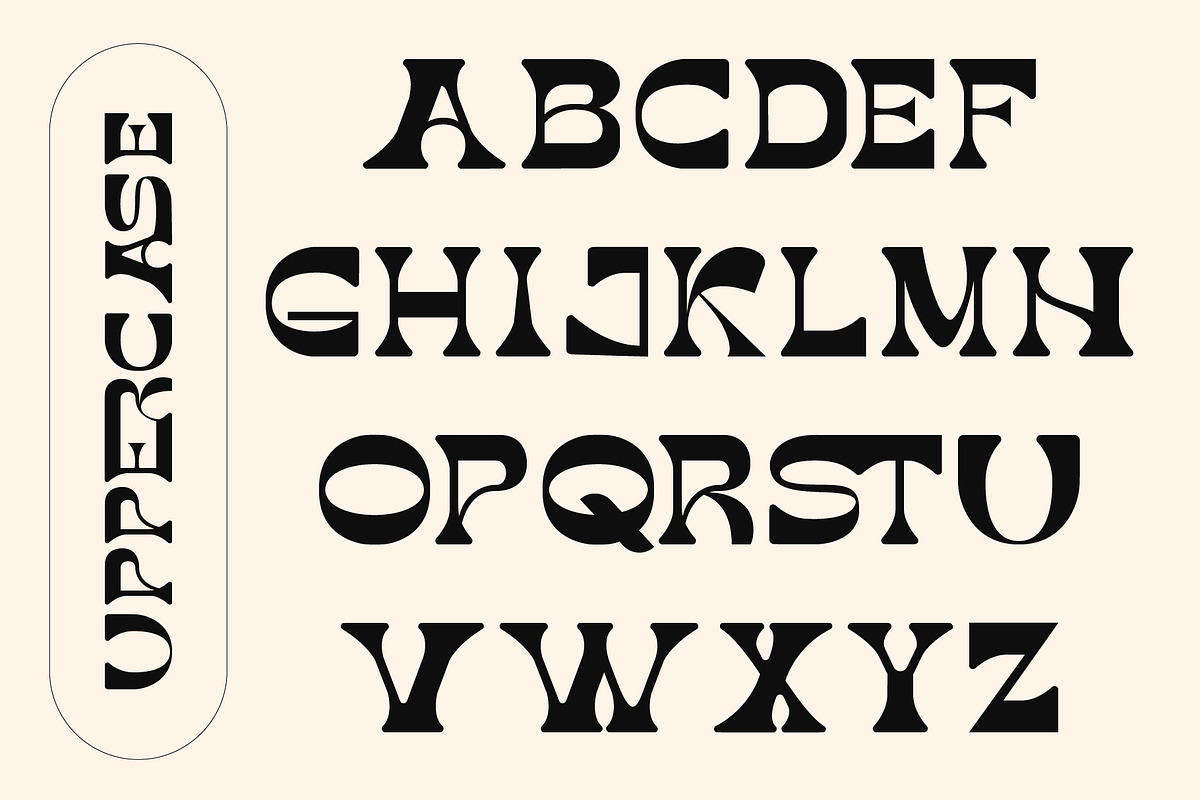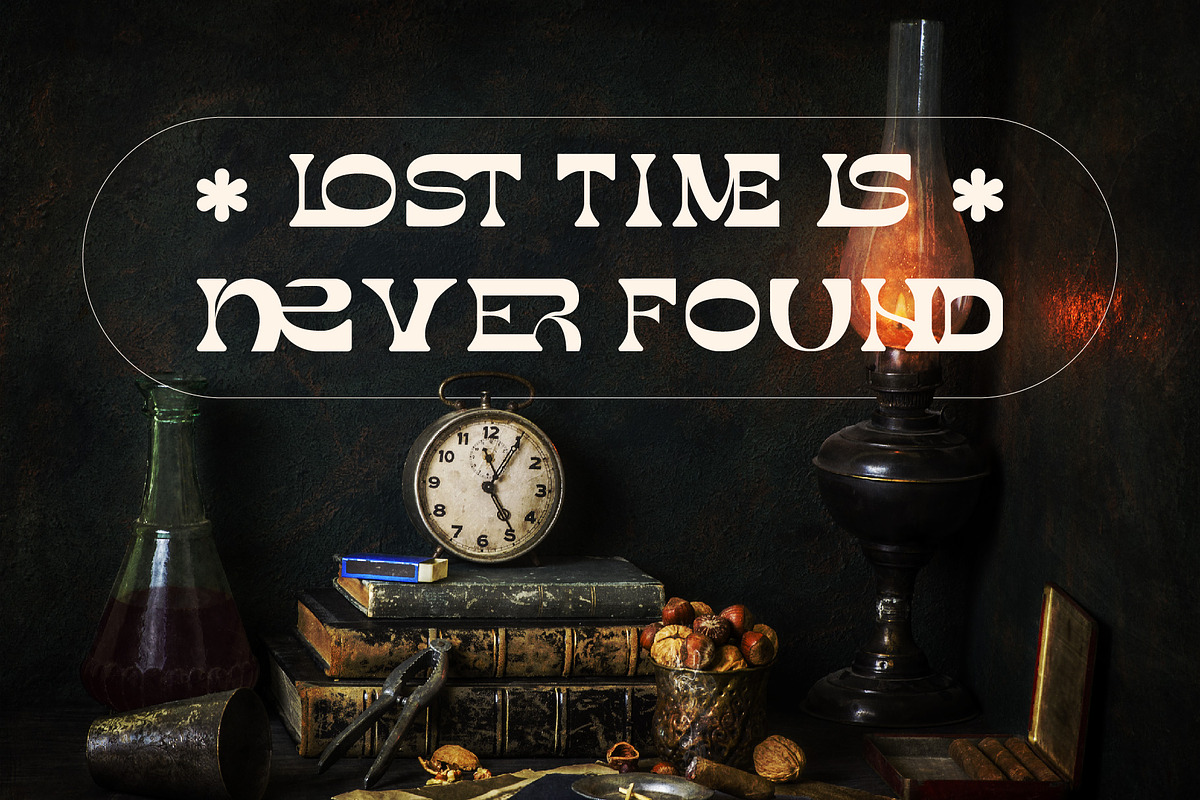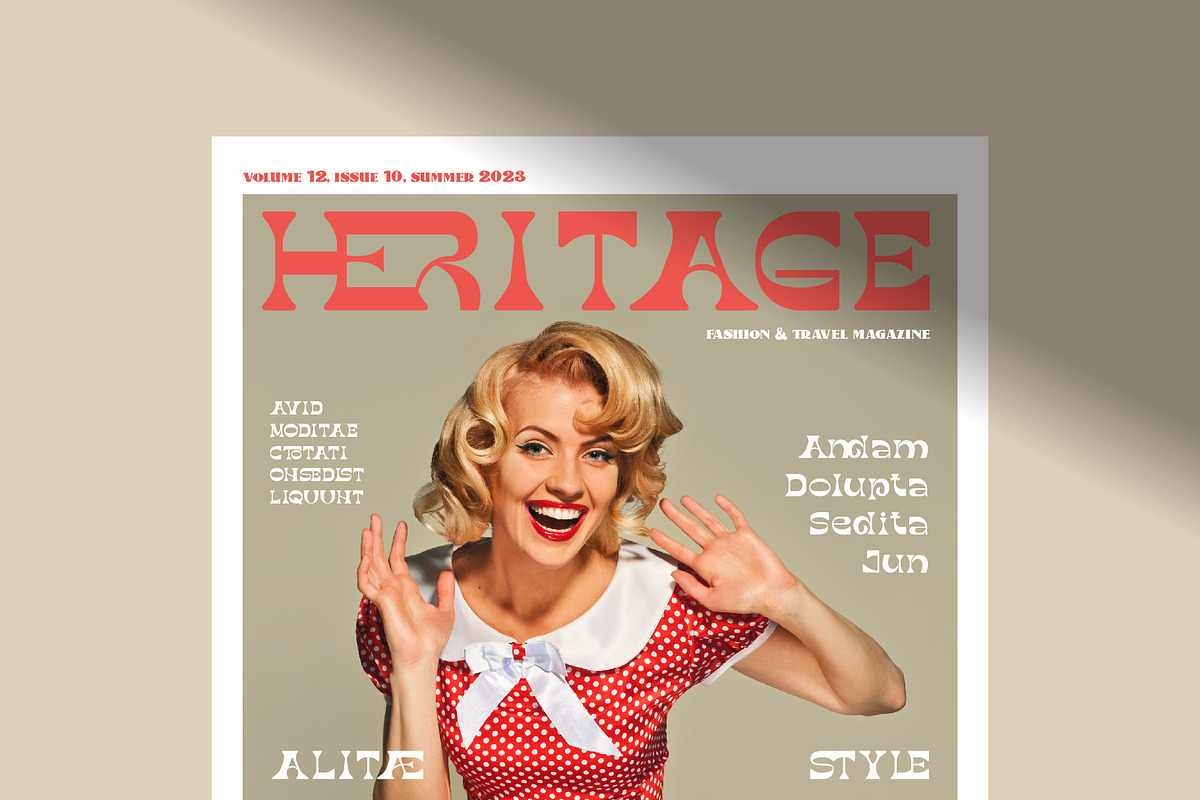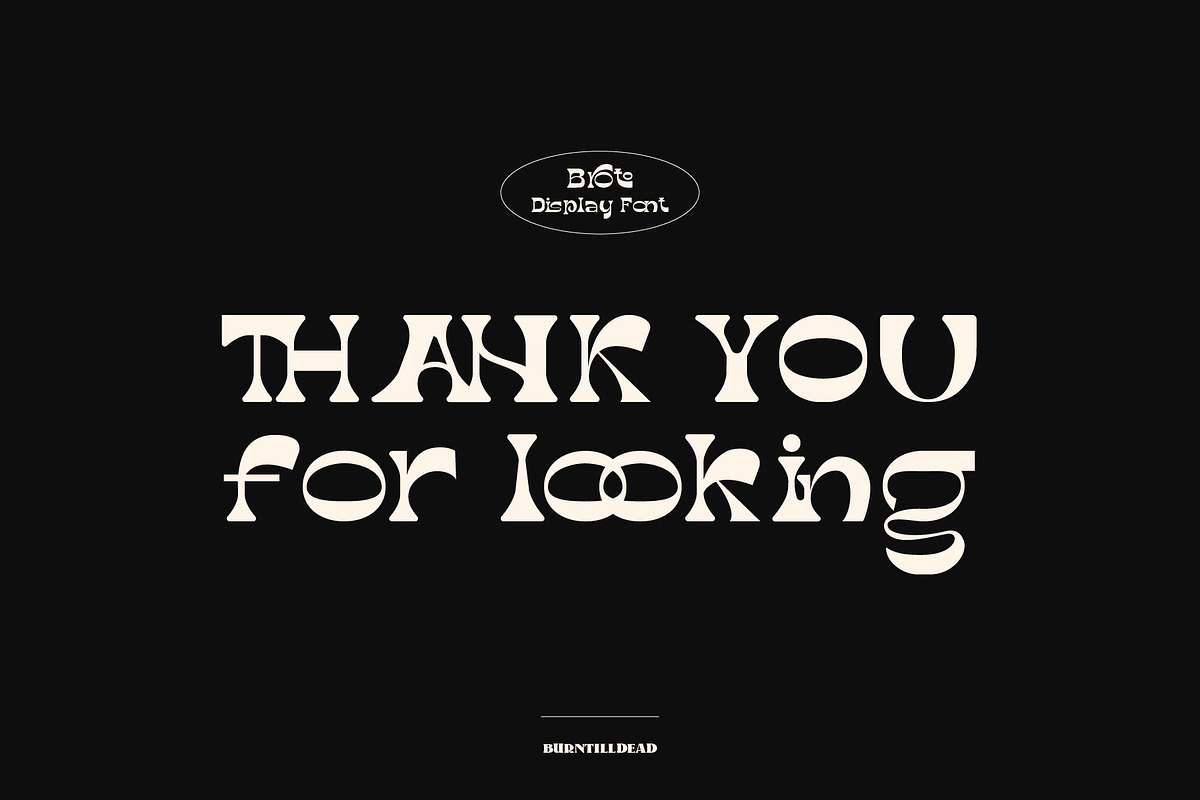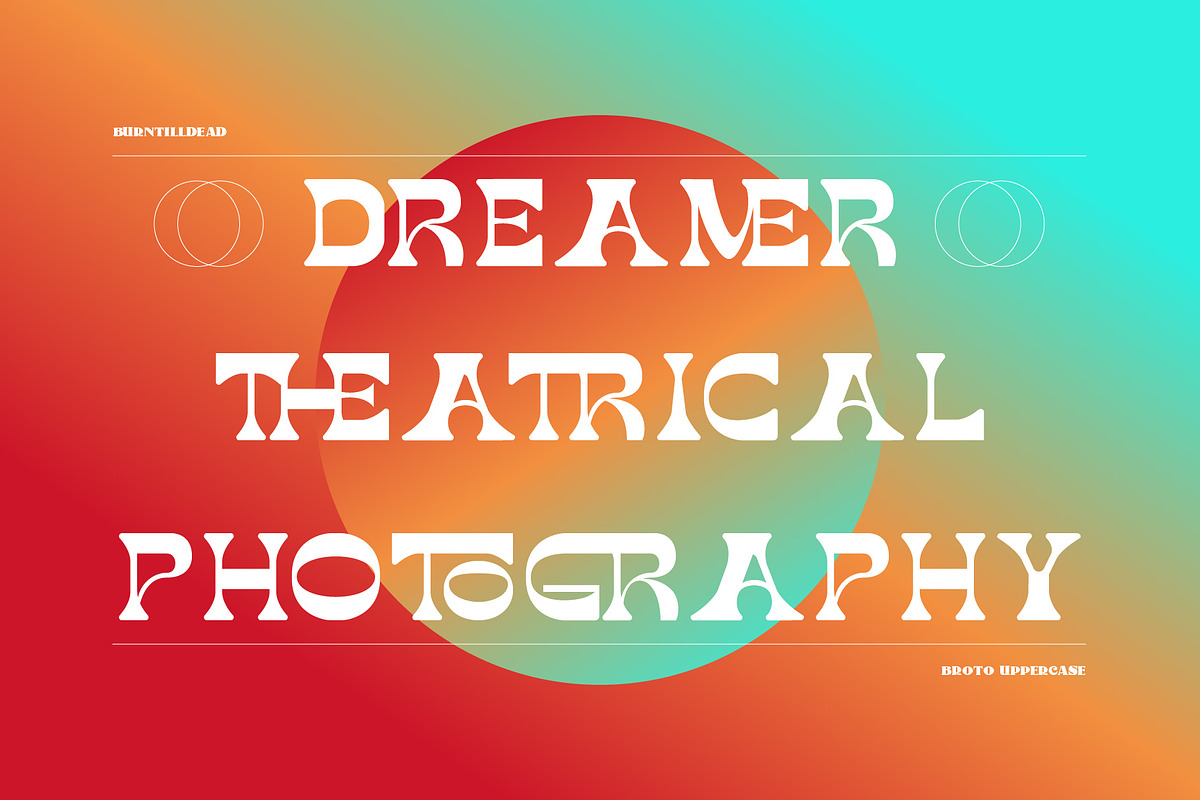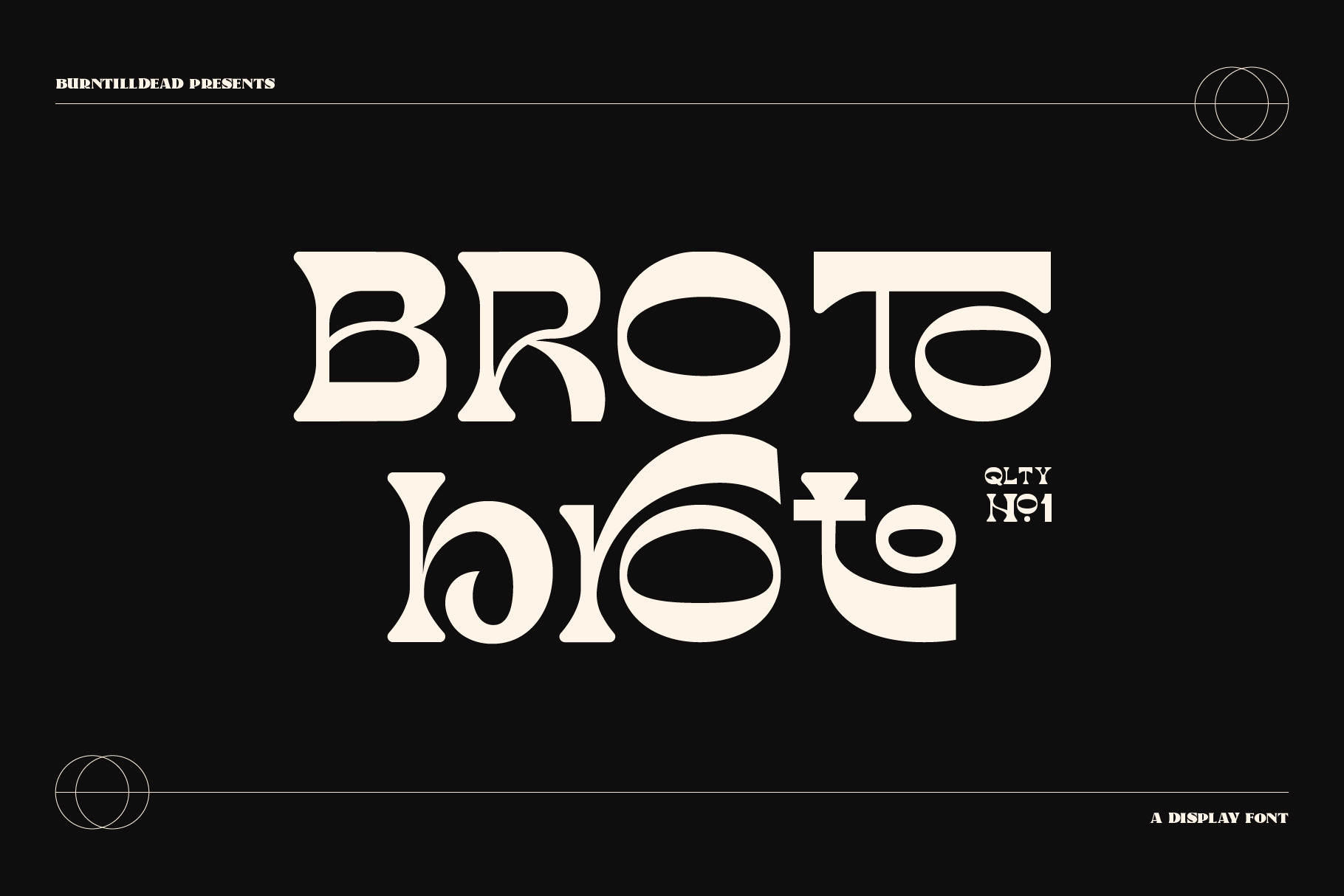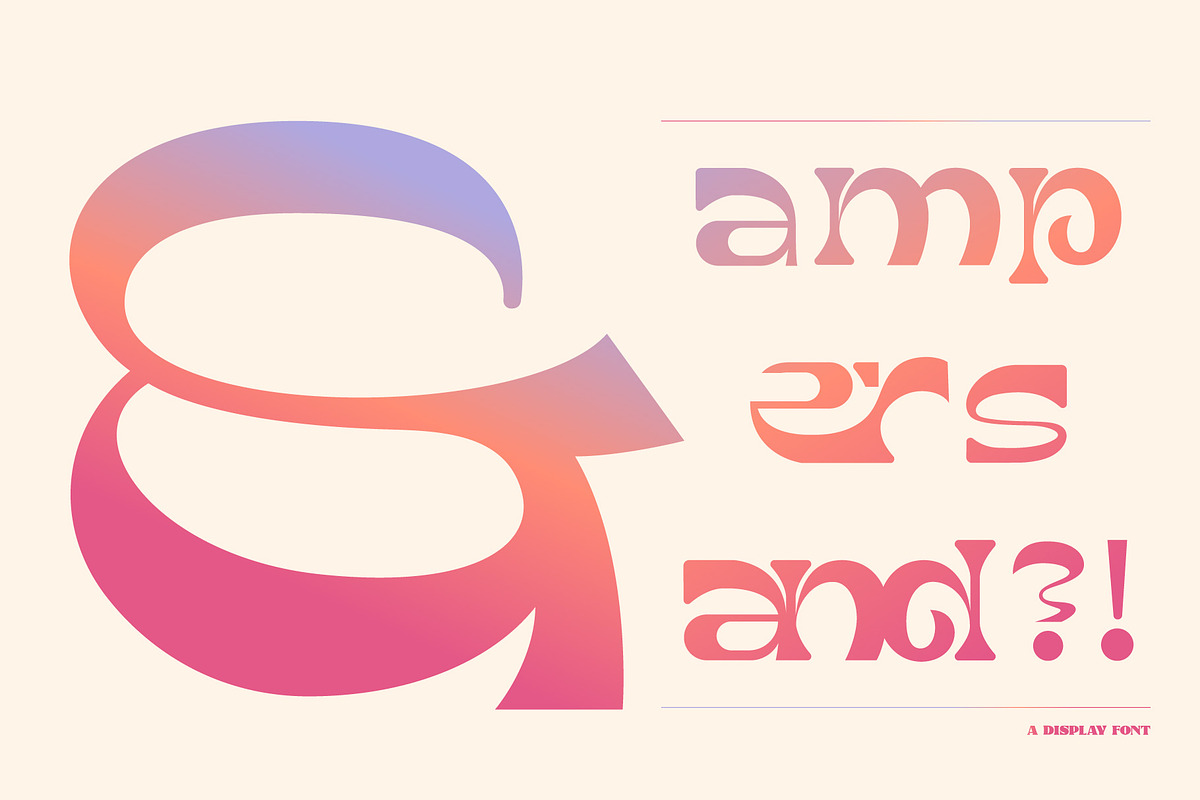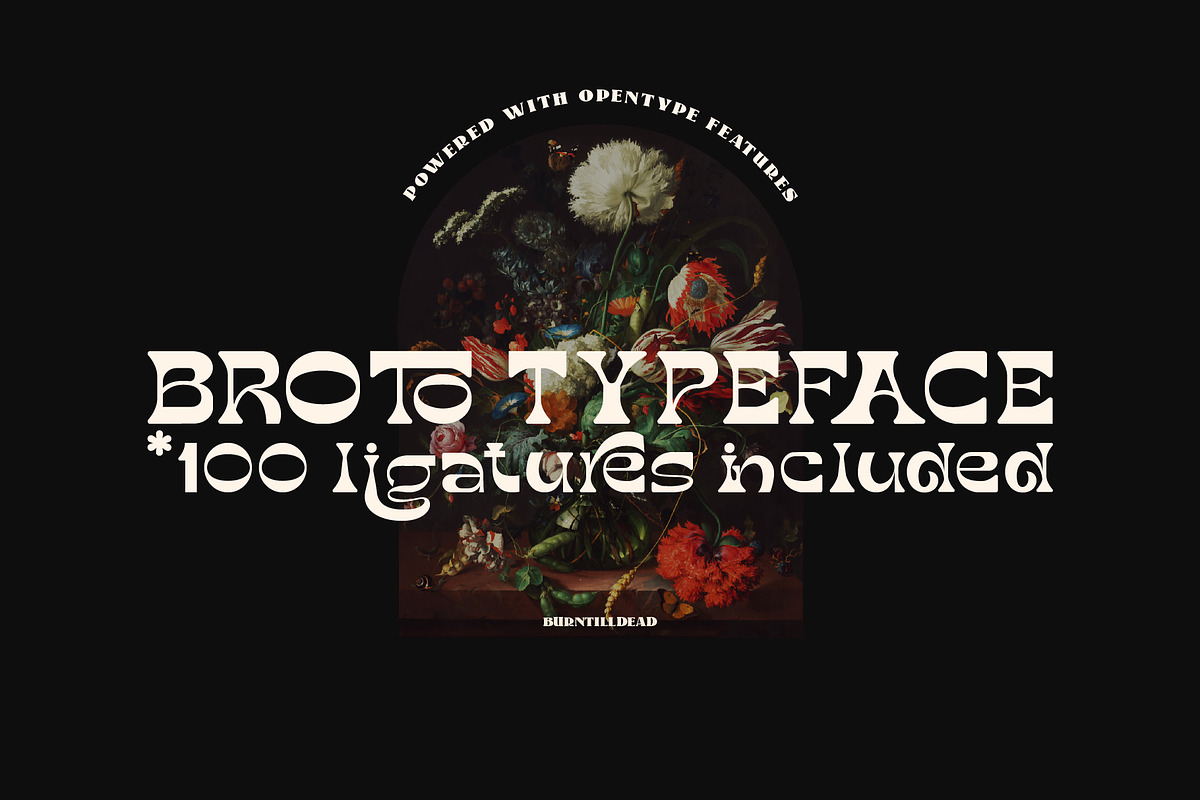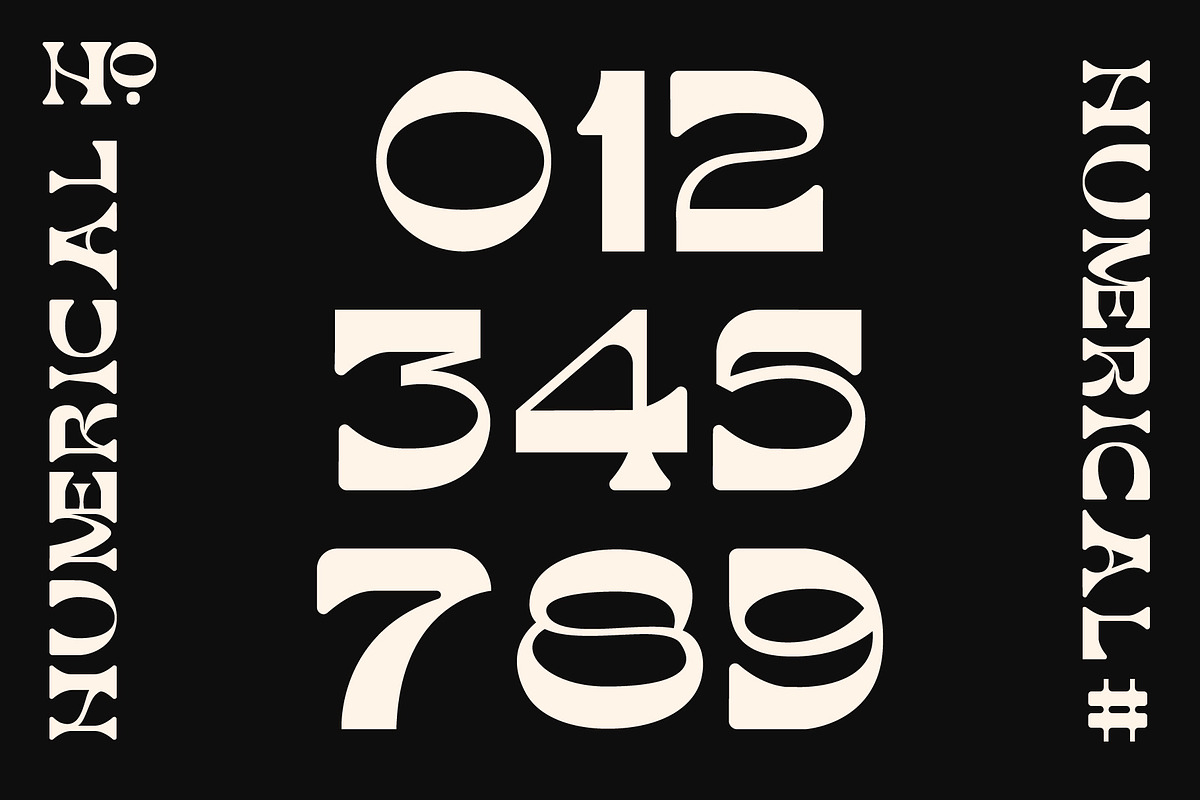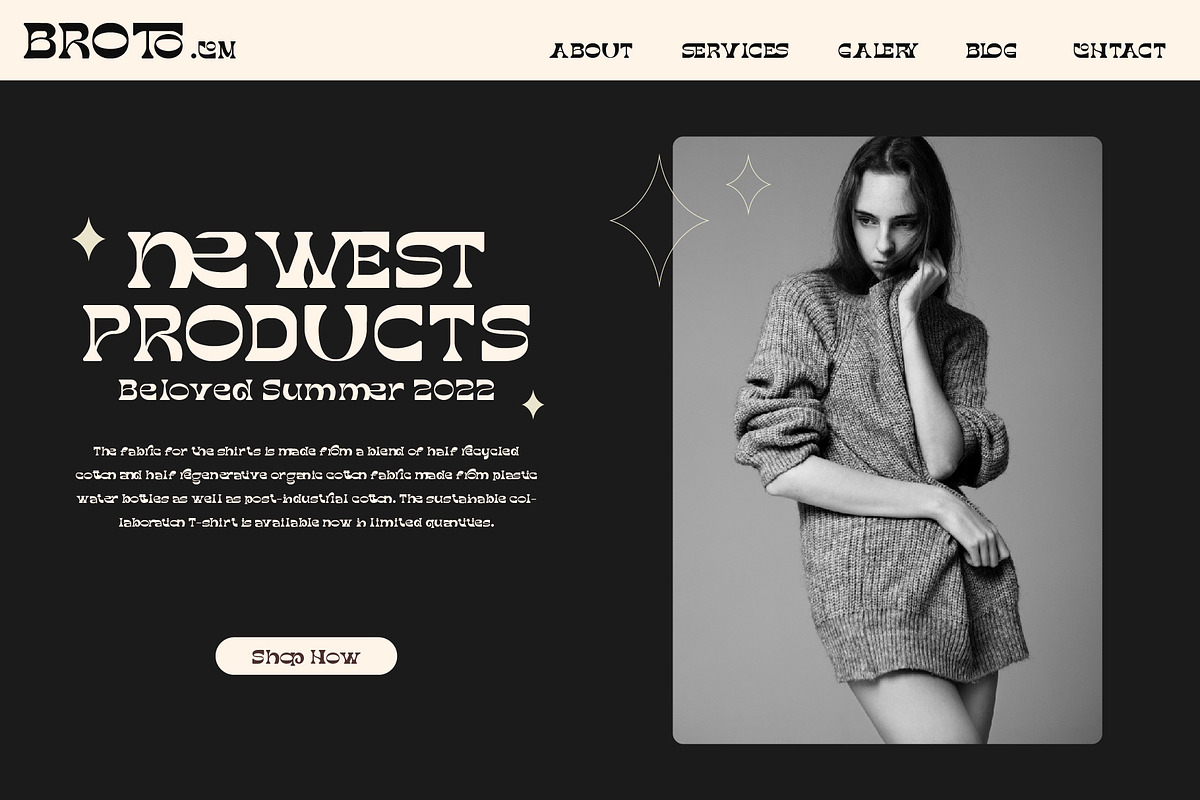
Broto - Display font & 100 ligatures
Introducing “Broto” brand new display font with high contrast letterforms. Powered with 100 ligatures to bring fluent looks combination.
Perfect and suitable for branding, headline, logotype, sticker, editorial design, and etc.